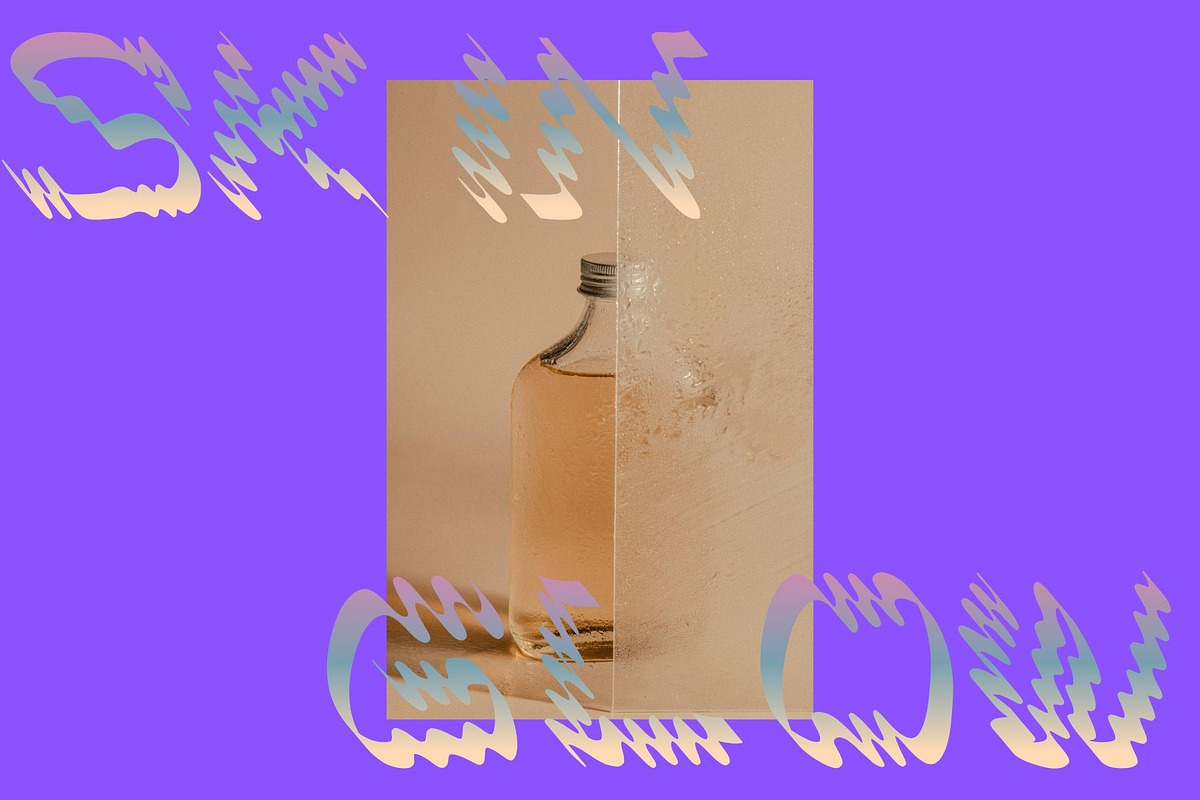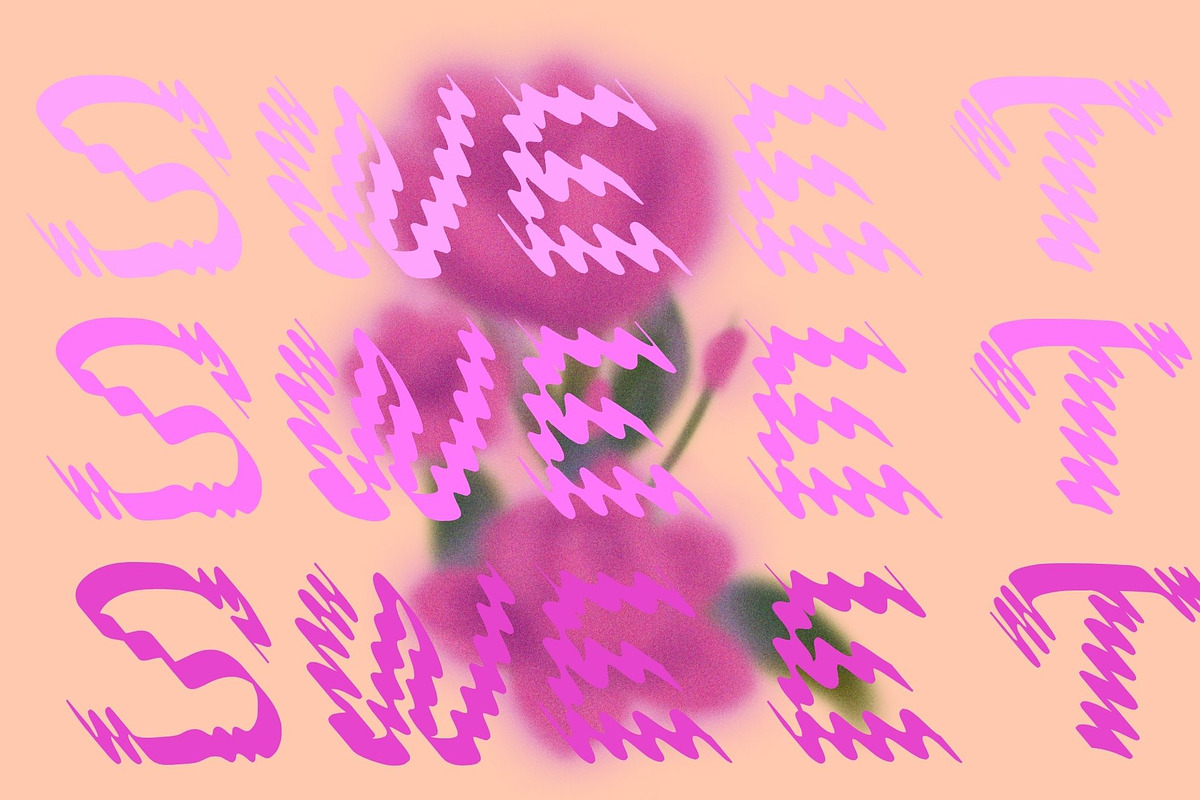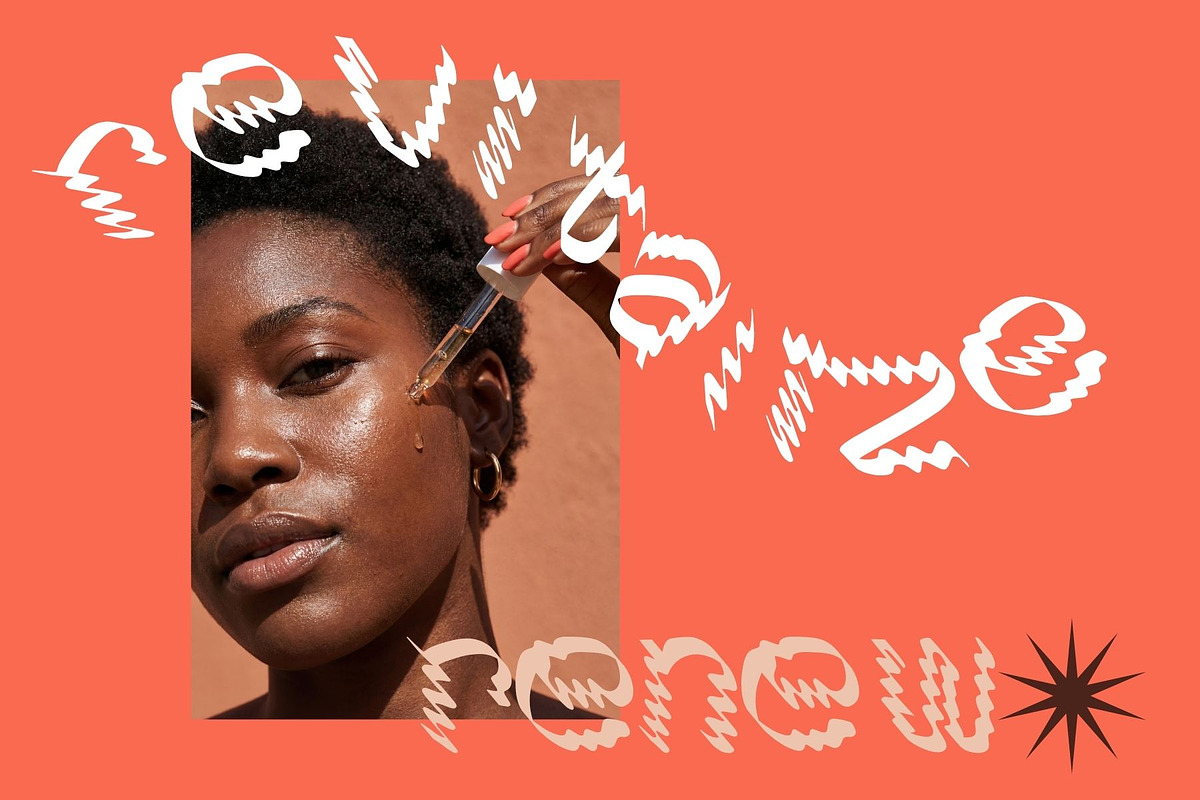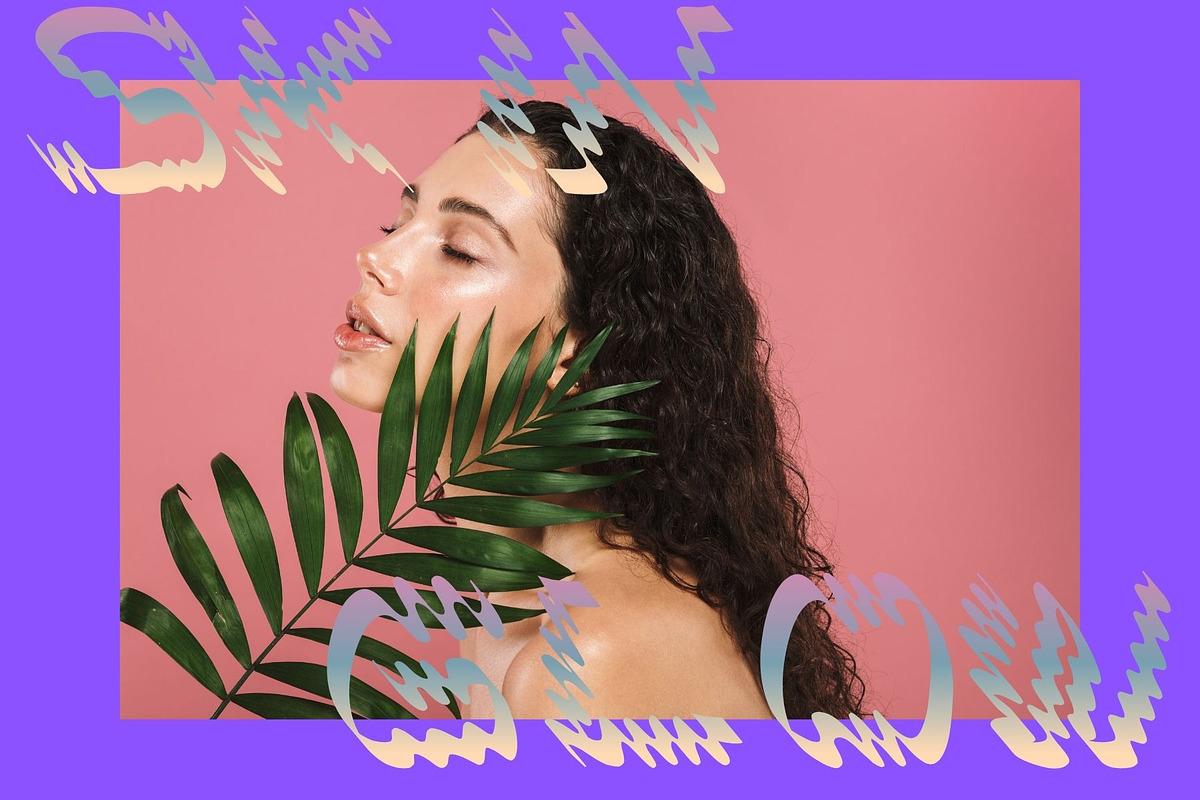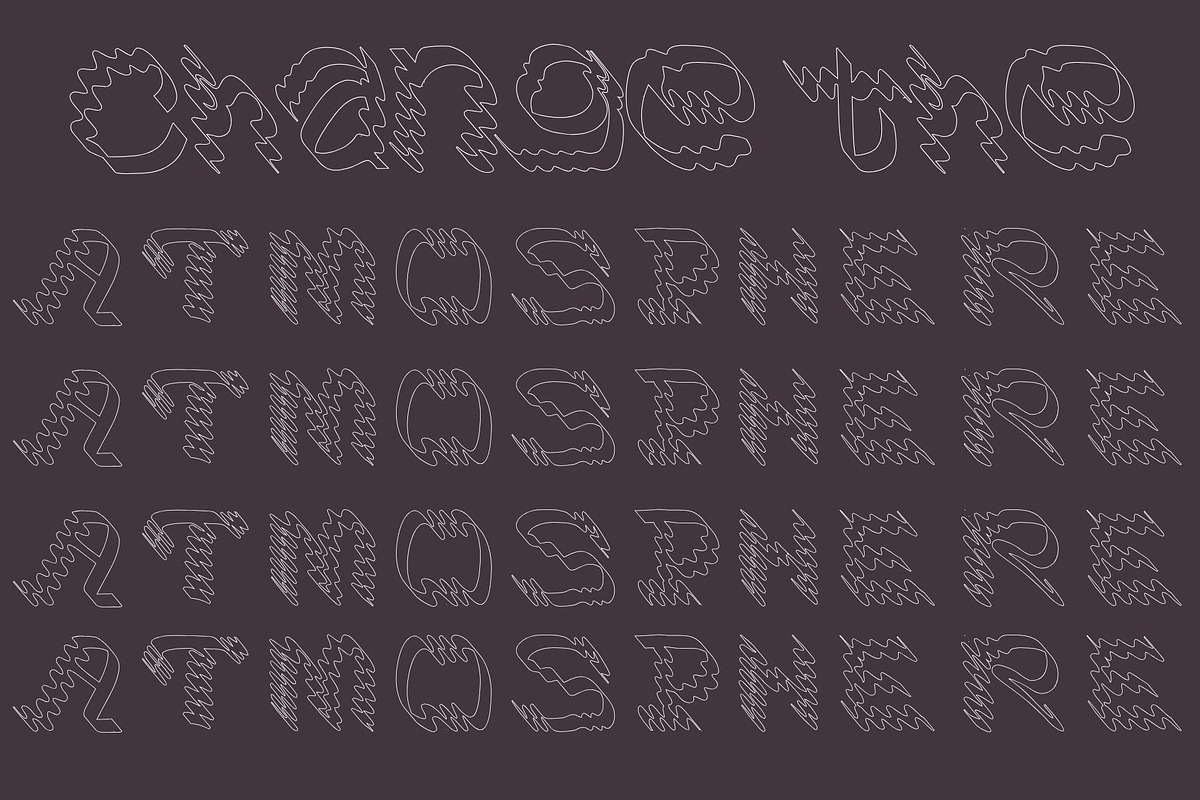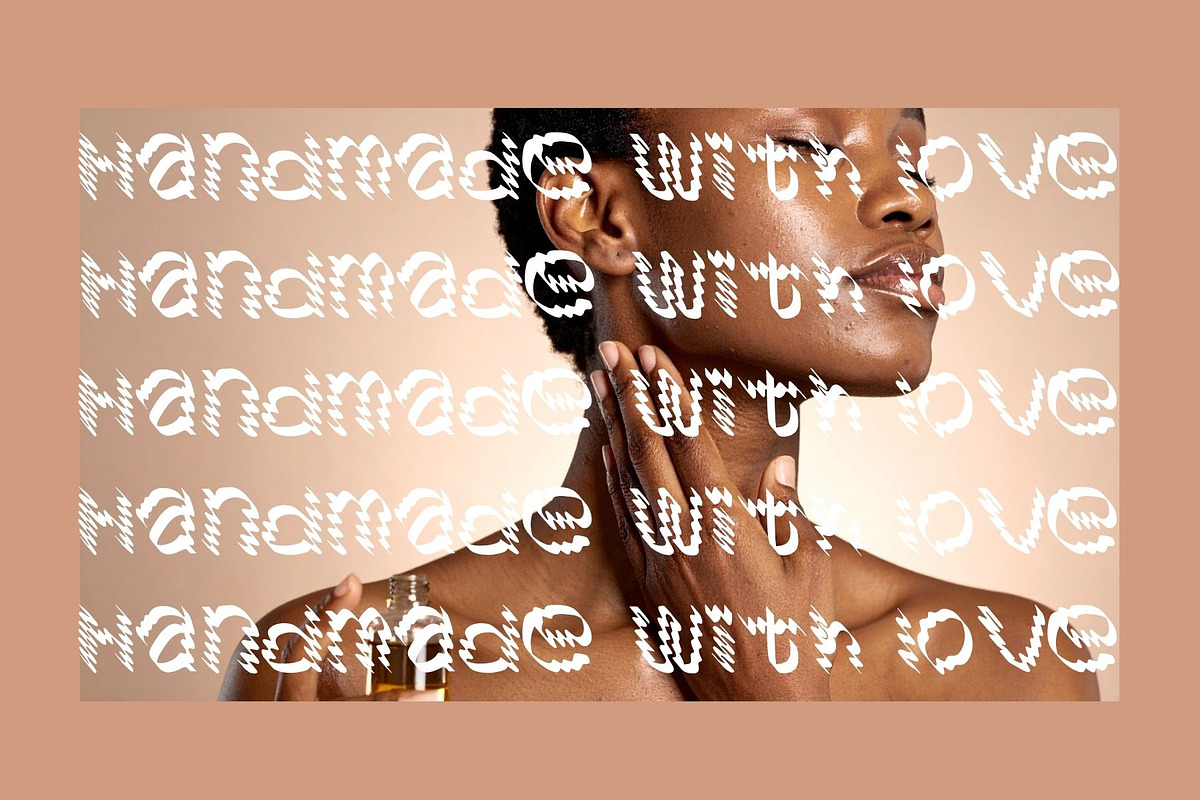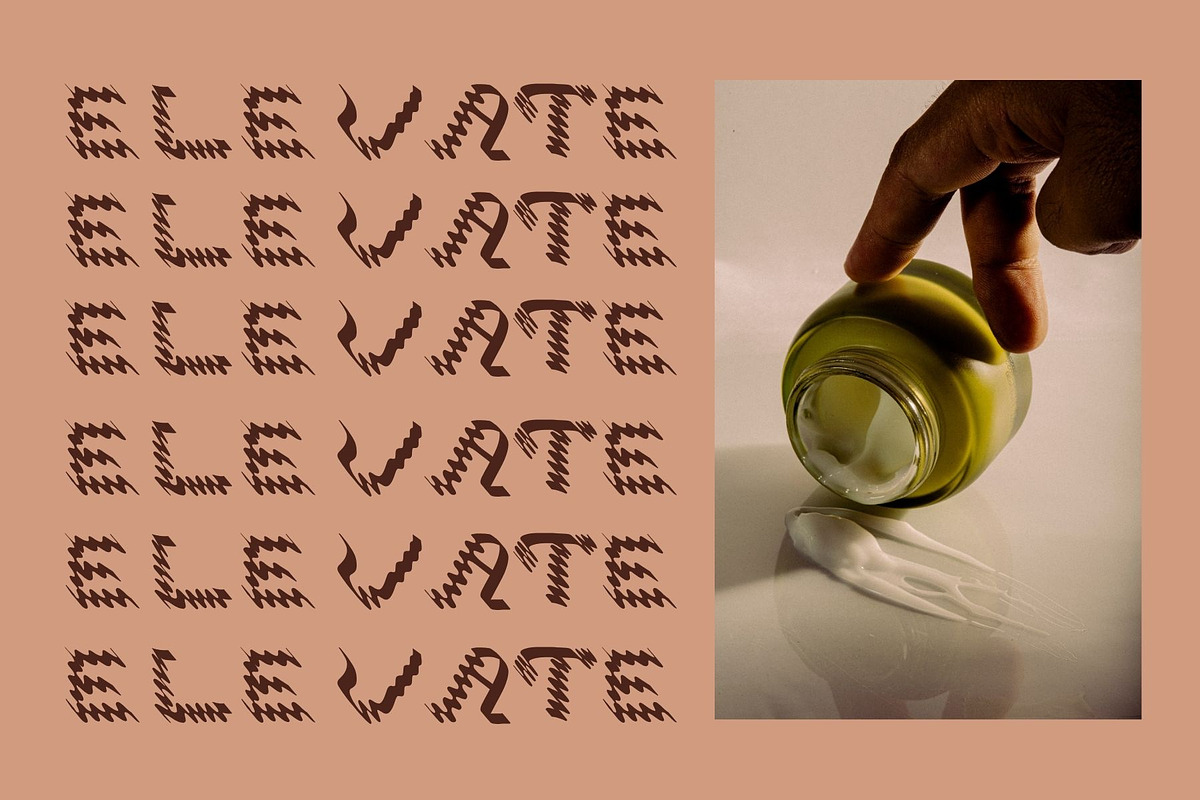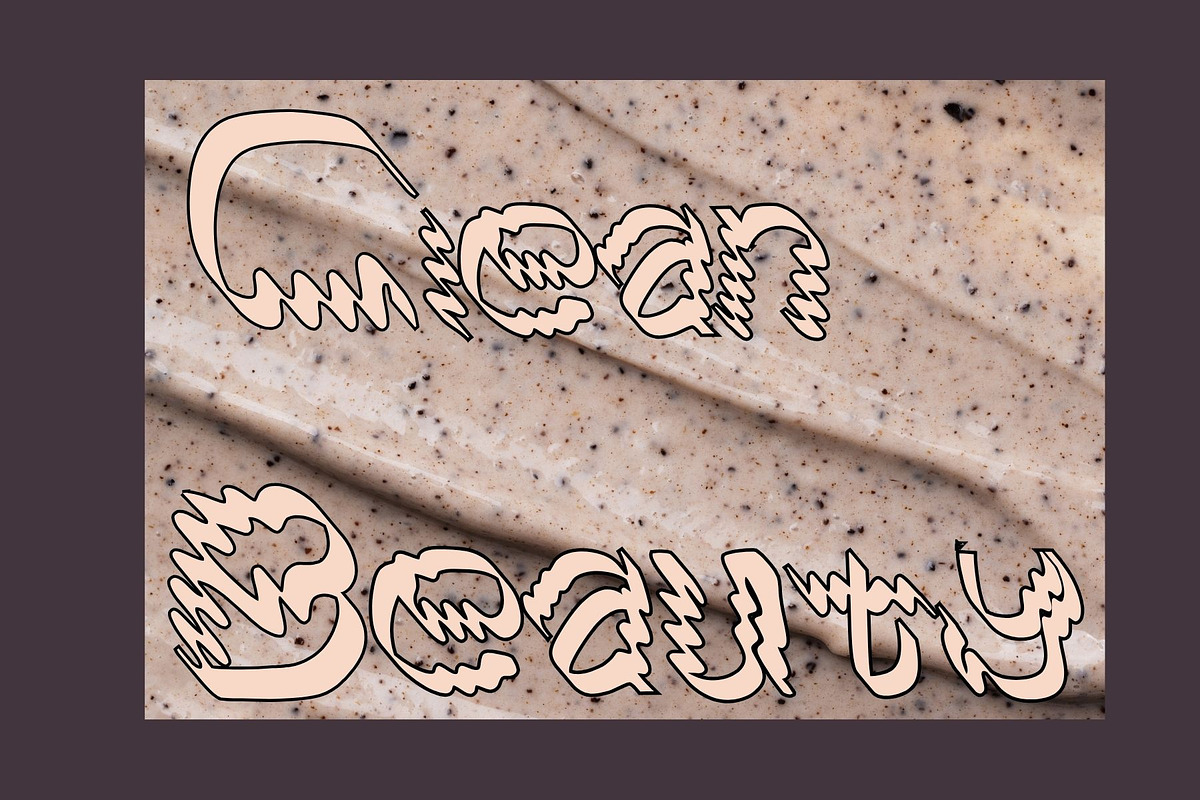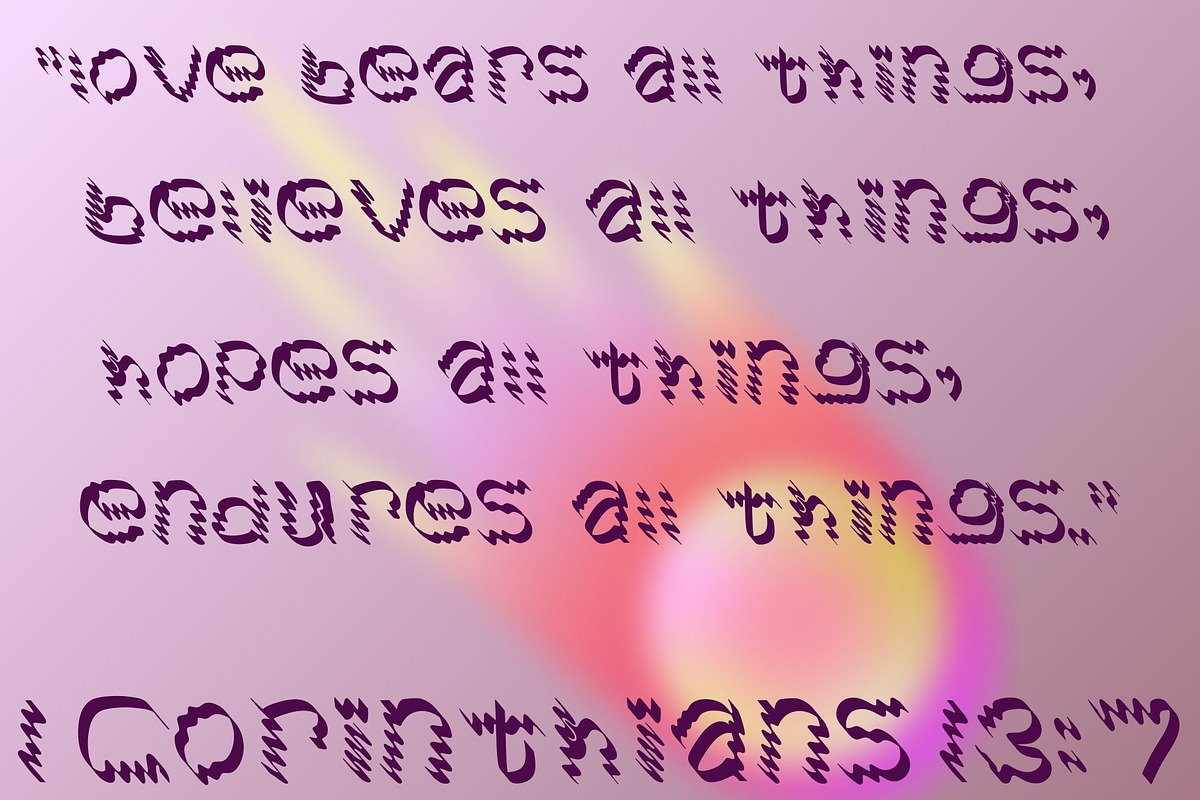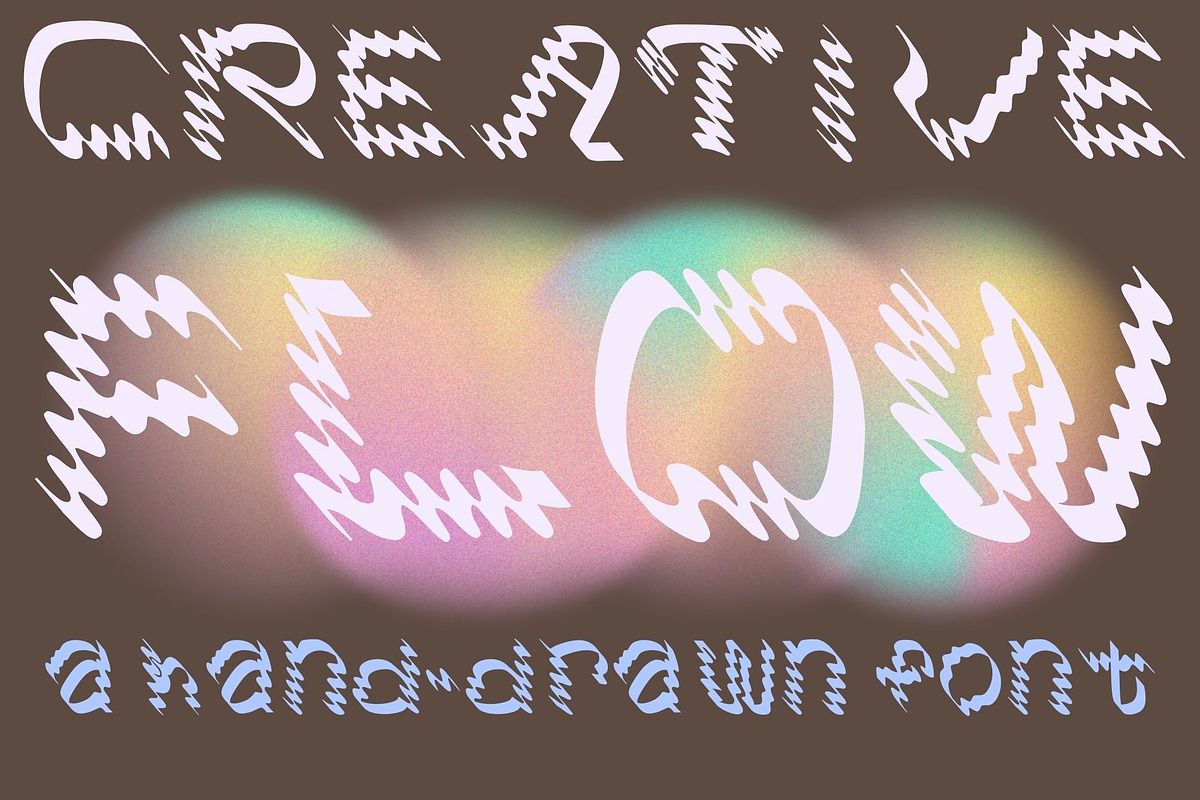
Electric Liquid,Wavy Hand-Drawn Font
Meet Electric Liquid : a hand-drawn font with super fine wavy details. This font is an eye-grabber, a show-stopper, and a room-grabber. She has so many waves , it's electrifying. Exceptional and unique hand-drawn detail, that's hard to come by. This font is perfect for graphic designers whose work is : cutting edge, modern, and has an on-trend aesthetic. Do you need to design an album cover ? Or a skin-care brand logo ? The Possibilities with how you can artistically pair the characters are endless. Enlarging one letter in this font, and see that just that letter looks like ART ! Now get in your creative flow :) Click on the images to see the full picture.
full alphabet lower case and upper case
numbers and symbols